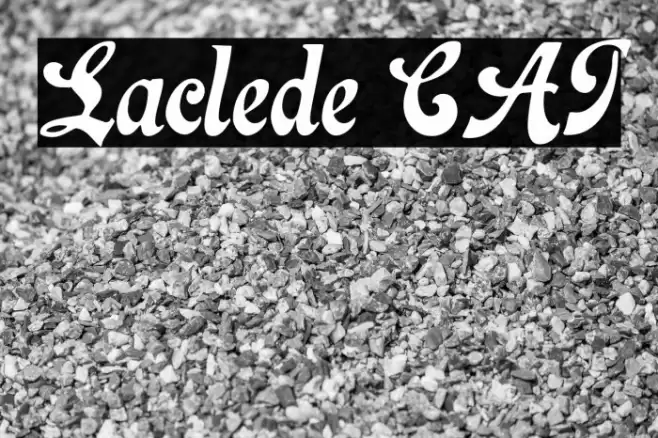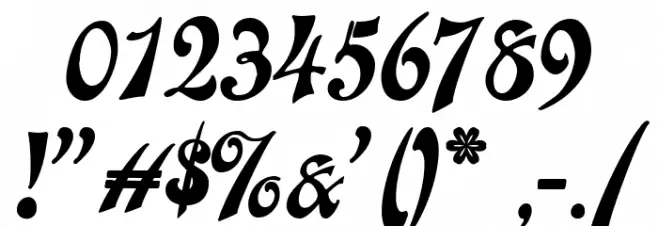
Laclede CAT Font
Laclede CAT Description
This font features a bold and dynamic script style with a strong presence. The uppercase letters are characterized by dramatic flourishes and sweeping curves, giving them a sense of movement and elegance. The lowercase letters maintain a consistent flow, complementing the uppercase with their own subtle curves and loops. The numbers are equally bold, with a slight slant that adds to the overall dynamic feel. Special characters are designed with the same attention to detail, ensuring they blend seamlessly with the rest of the typeface. The font's high contrast between thick and thin strokes enhances its readability while maintaining its decorative appeal.
A bold, dynamic script font with dramatic flourishes and high contrast from Uncategorized fonts.